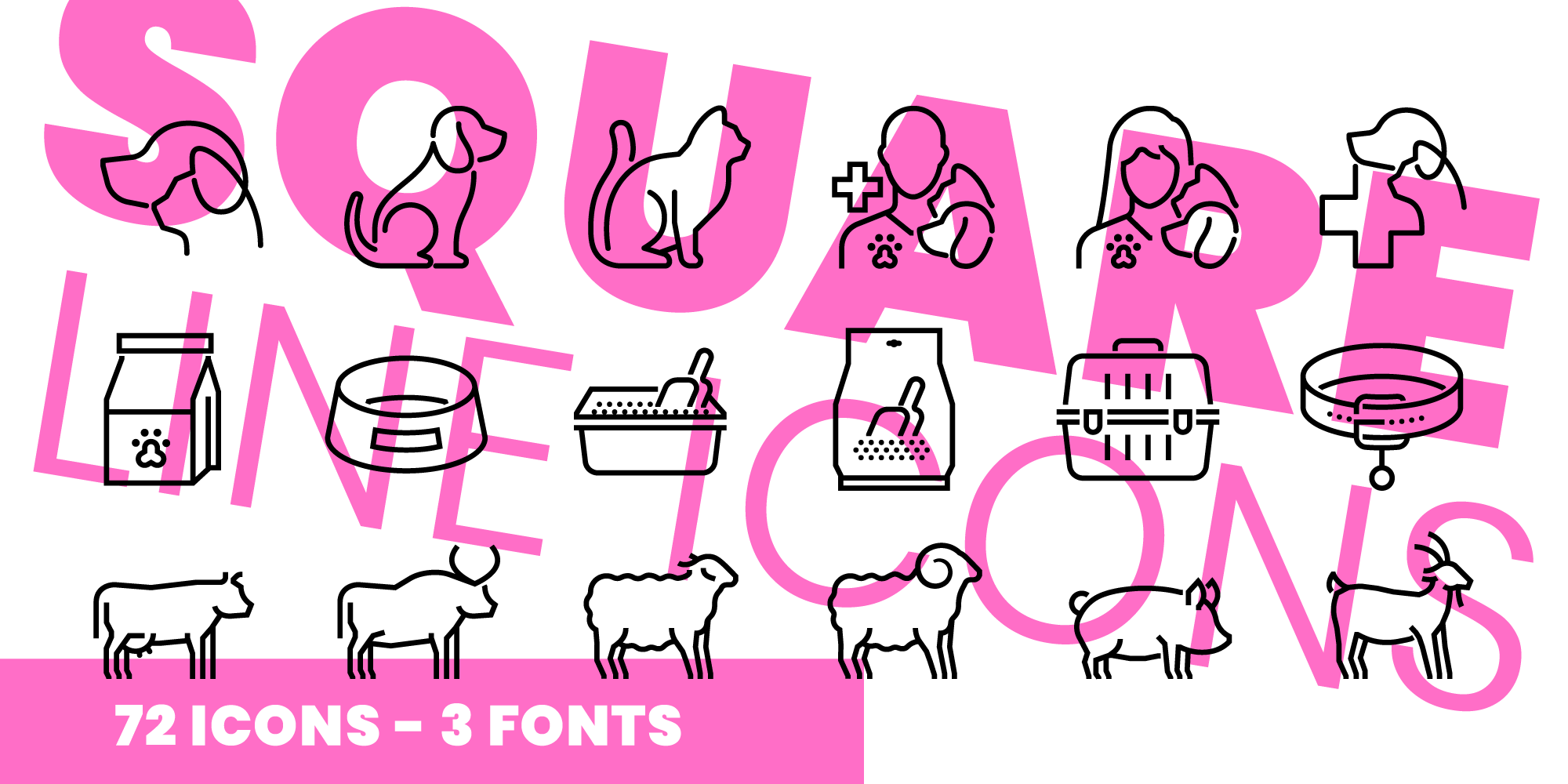
Square Line Icons Animals Font is ideal for zoo educational materials, veterinary clinic branding, wildlife conservation apps, pet care service logos, animal shelter signage, and nature documentary graphics.
Square Line Icons Animals Font is exciting because it combines minimalist design precision with wildlife diversity, offering designers a comprehensive icon system that celebrates the animal kingdom through clean, geometric representations.
The Square Line Icons Animals Font family includes wildlife variations: Square Line Icons Animals Regular, bold versions, outline alternates, and comprehensive animal symbol collections covering mammals, birds, reptiles, and marine life.
Bring nature to life with Square Line Icons Animals Font Free Download, a systematically designed icon typeface that brings wildlife diversity and geometric clarity to your most engaging animal-themed design projects. This versatile font excels in creating educational branding for natural history museums, animal hospitals, wildlife photography services, and environmental education programs that teach respect for all living creatures. The thoughtfully crafted icon symbols feature consistent line weights and geometric proportions that ensure perfect visual harmony while representing hundreds of animal species with remarkable clarity and recognition. Perfect for mobile app interfaces, educational infographics, animal identification guides, and conservation campaign materials that need to communicate complex wildlife information through simple, universal visual language, this font connects with audiences who love animals and nature. Each icon speaks with visual precision, making every animal representation feel scientifically accurate and instantly recognizable across cultural boundaries. Square Line Icons Animals Font transforms wildlife communications into engaging visual experiences that educate audiences about biodiversity while inspiring deeper connections with the natural world and its magnificent creatures.